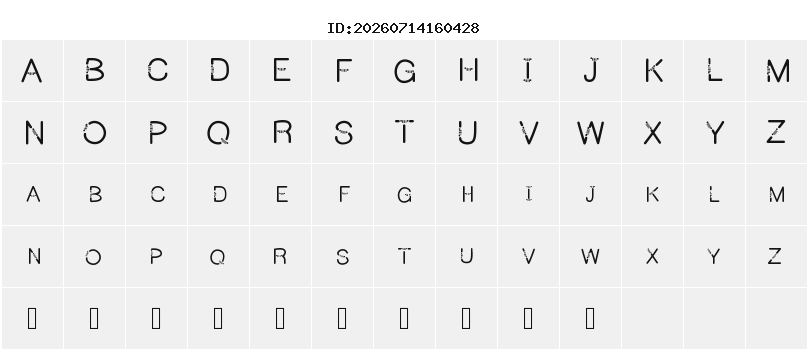
JEEPCAPS Preview
• Font Name: JEEPCAPS
• Full Font Name: JEEPCAPS
About JEEPCAPS.ttf
JEEPCAPS.ttf is a modern, elegant sans-serif font designed for ultimate readability and visual harmony. Perfect for branding, headlines, web design, and print materials.